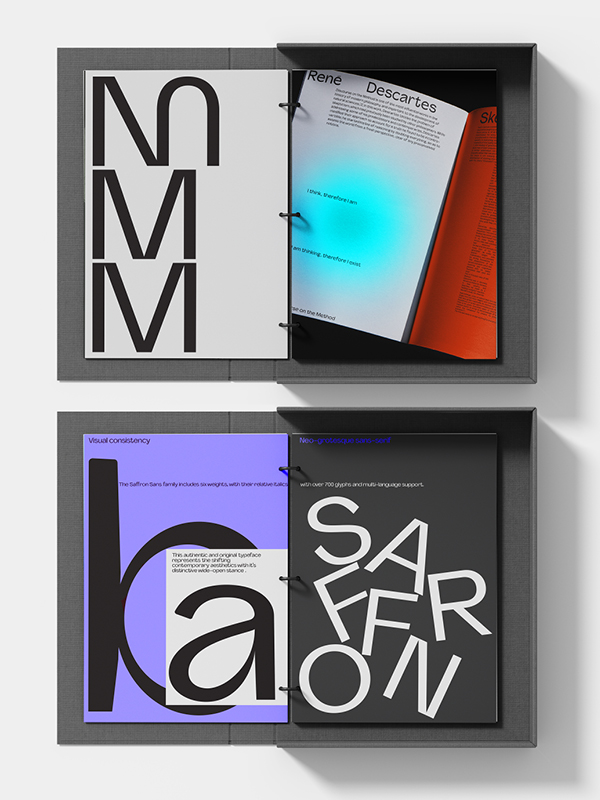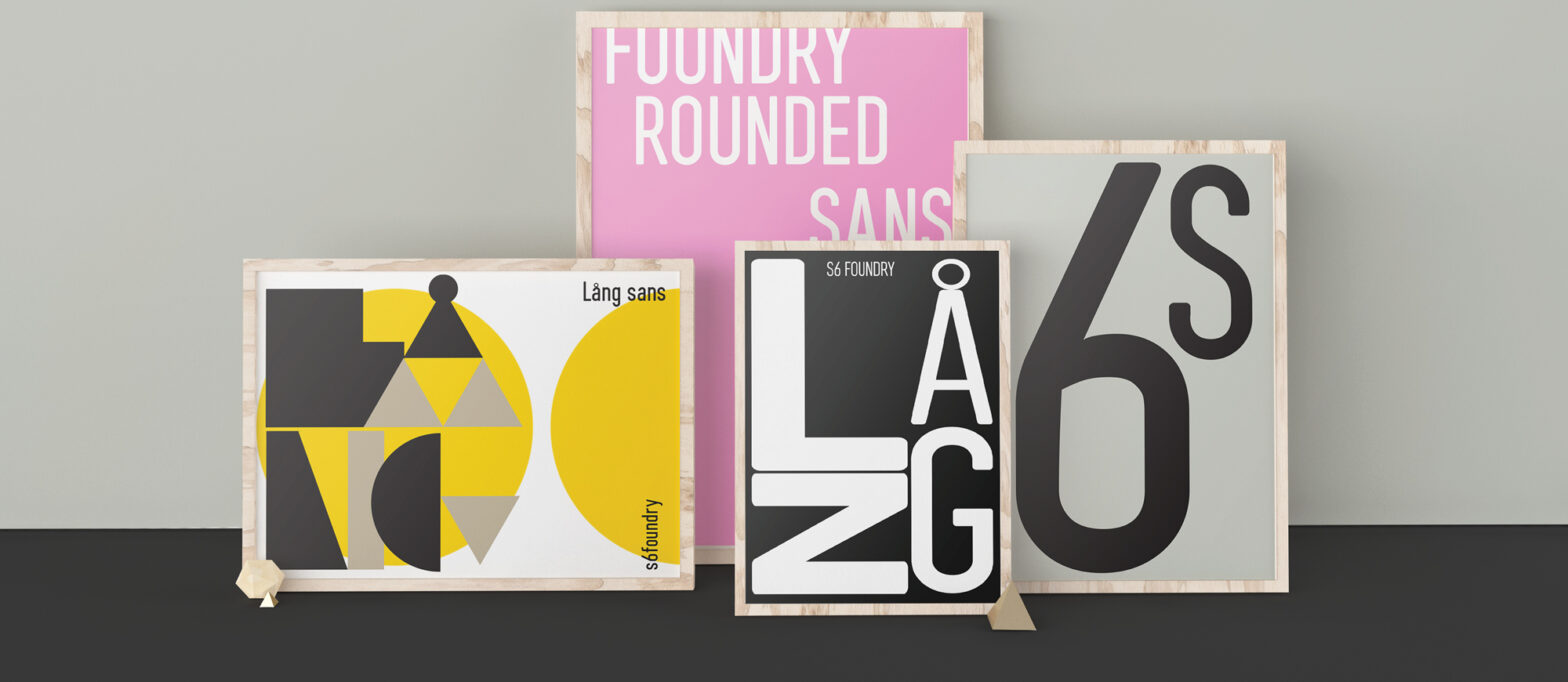
Vertical Sans Condensed Sans Serif Font for Editorial Headlines, Branding and Signage 3 Weights Light Regular Bold Buy Now 200 Latin languages 400 Glyphs OpenType Vertical Sans is a contemporary condensed sans-serif designed around height, compression, and strong typographic rhythm. Built with tall proportions and disciplined spacing, the family creates a clear and commanding visual… Continue reading Vertical Sans
Saffron Expressive Display Serif Font for Luxury Branding, Fashion and Editorial Design 5 Weights & Italics Light Book Regular Medium Bold Buy Now 220 Latin languages 790 Glyphs OpenType Saffron is an expressive display typeface designed with bold contrast, sculpted curves, and a strong contemporary personality. Built to create visual atmosphere and distinction, the family… Continue reading Saffron Grotesk
Neues Haus Geometric Sans Serif Font for Branding, Signage and Editorial Design 6 Weights Light Book Regular Medium Bold Buy Now 221 Latin languages 720 Glyphs OpenType Neues Haus is a contemporary geometric sans-serif shaped by architectural structure, modular rhythm, and modernist clarity. Built with strong proportions and disciplined geometry, the family creates a typographic… Continue reading Neues Haus
Neues Grotesque Neutral Grotesk Font for Branding, Editorial and Interface Design 8 Weights + Italics Thin Light Book Regular Medium Bold Ultra Black Buy Now 218 Latin languages 740 Glyphs OpenType Neues Grotesque is a contemporary grotesk designed around neutrality, precision, and systematic clarity. Built with disciplined proportions and restrained detailing, the family delivers a… Continue reading Neues Grotesque
Lunema Sans Inktrap Sans Serif Font for Branding, Interfaces and Editorial Design 7 Weights & Italics Light Book Regular Medium Bold Buy Now 200 Latin languages 450 Glyphs OpenType Lunema Sans is a contemporary sans-serif defined by sharp internal cuts, controlled inktraps, and refined geometric balance. The family combines clean modern proportions with subtle technical… Continue reading Lunema Sans
Lang Sans Sharp Contemporary Sans Serif Font for Branding, Editorial and Digital Design 4 Weights Light Regular Medium Bold Buy Now 207 Latin languages 500 Glyphs OpenType Lang Sans is a contemporary sans-serif designed with clean geometry, sharp rhythm, and a strong typographic presence. Built around disciplined proportions and compact spacing, the family delivers a… Continue reading Lang Sans
Florid Sans Fluid Contemporary Sans Serif Font for Branding, Editorial and Lifestyle Design 8 Weights Light Book Regular Medium Bold Buy Now 211 Latin languages 760 Glyphs OpenType Florid Sans is a contemporary sans-serif designed with fluid proportions, open spacing, and a calm visual rhythm. The family combines modern structural clarity with softer organic shaping,… Continue reading Florid Sans
Art Condensed Display Font for Posters, Branding and Editorial Headlines 9 Weights + Styles Light Book Regular Medium Bold Buy Now 201 Latin languages 410 Glyphs OpenType Arto Condensed is a narrow display typeface designed for impact, compression, and strong vertical rhythm. Built with tall proportions and tightly controlled spacing, the family creates bold… Continue reading Arto Condensed
Lagom Grotesk Restrained Grotesk Font for Branding, Editorial and Interface Design 7 Weights Light Book Regular Medium Bold Buy Now 206 Latin languages 560 Glyphs OpenType Lagom Grotesk is a restrained contemporary grotesk designed around balance, clarity, and functional simplicity. Built with disciplined proportions and controlled spacing, the family delivers a neutral yet refined typographic… Continue reading Lagom Sans
Aprex Sans Versatile Contemporary Sans Serif Font for Branding, Editorial and Digital Design Weights Light Book Regular Medium Semi bold Bold Buy Now 221 Latin languages 750 Glyphs OpenType Aprex Sans is a contemporary sans-serif designed to balance precision, flexibility, and visual clarity across modern communication systems. Built with open proportions, controlled geometry, and refined… Continue reading Aprex Sans